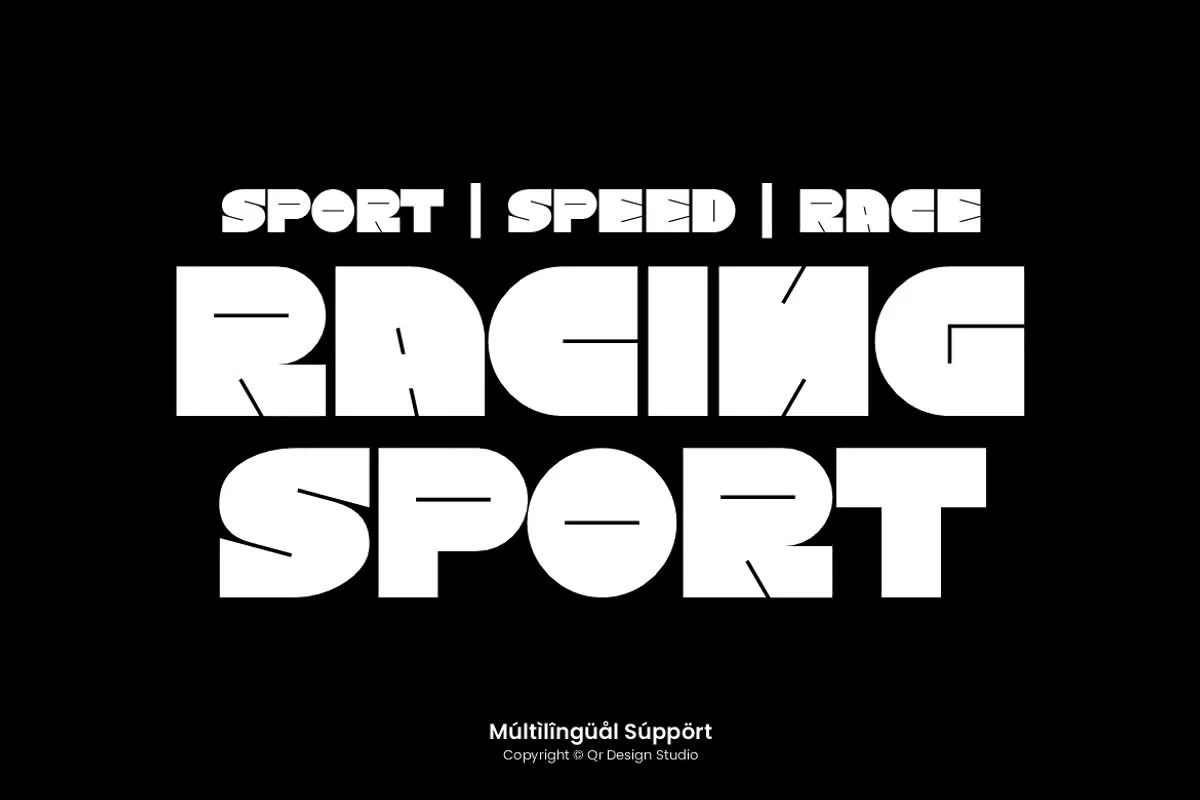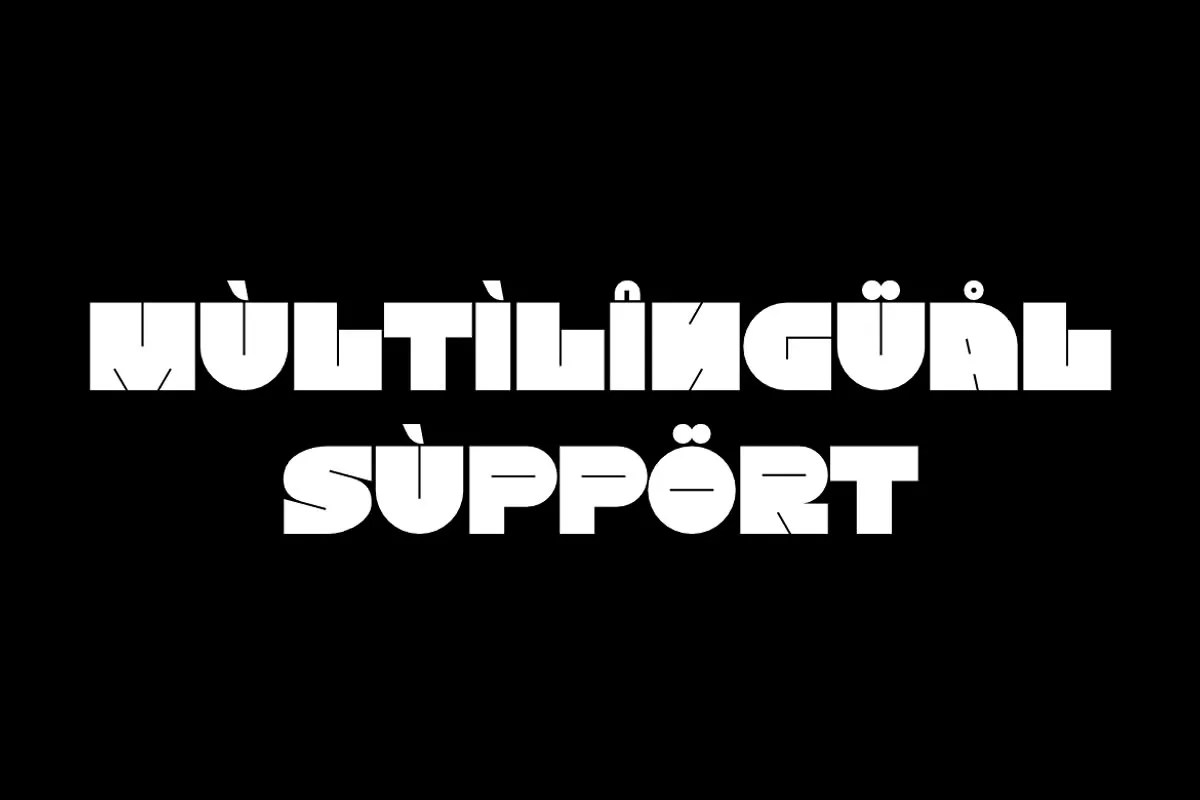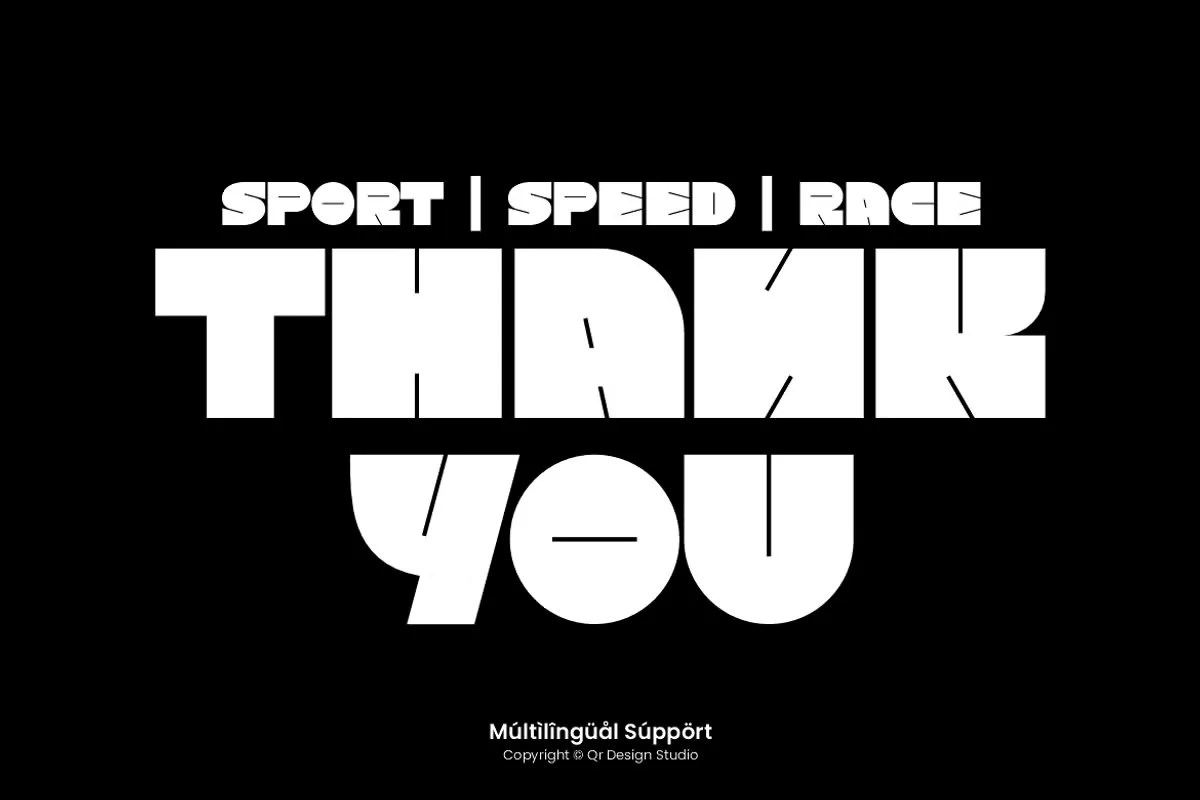
Rushland by QR Design Studio. This is a dynamic modern display font designed for speed and immediate impact. Its clean lines and confident, forward-leaning stance create an unmistakable sense of motion. This typeface is perfect for projects that need to feel urgent, fast, and contemporary. Rushland helps you design with a burst of adrenaline, pushing your message to the forefront with its energetic character.
This font excels in design fields that value energy and innovation. Specifically, it is a great choice for tech startups or automotive branding. It can effectively convey a sense of cutting-edge speed and progress. Furthermore, this modern display font is perfect for sports-related graphics and exciting event posters. Its inherent motion helps build excitement and anticipation in the viewer. Use it for powerful logos and headlines that you want to feel active, alive, and ready for action.
• Dynamic and modern display style
• Features sleek lines that imply motion
• Ideal for tech, sports, and automotive themes
• Adds a sense of speed and energy